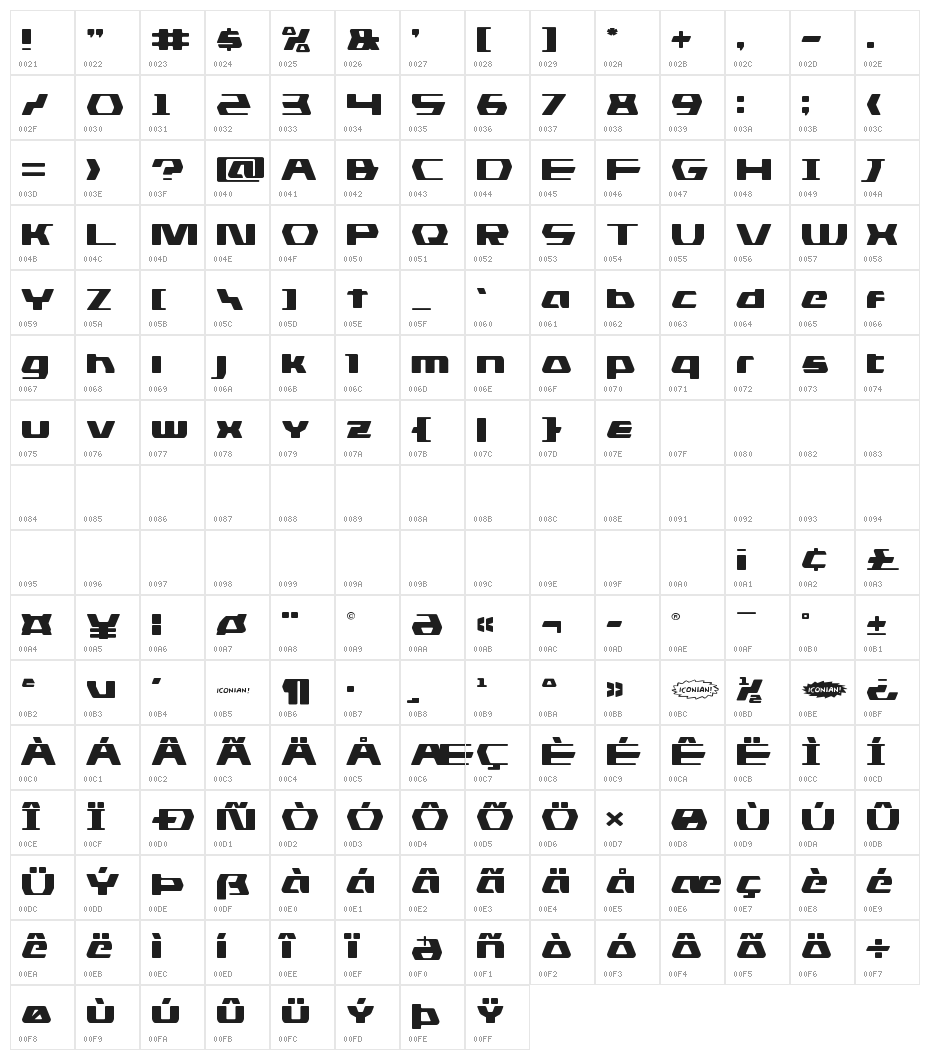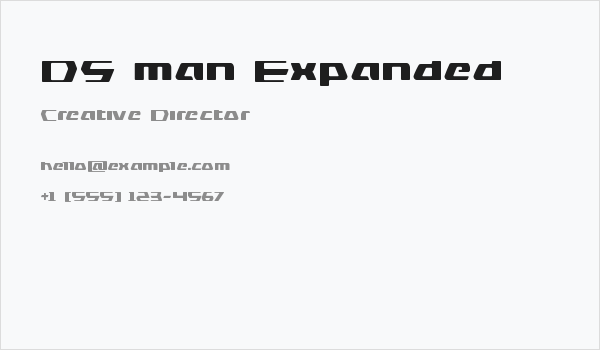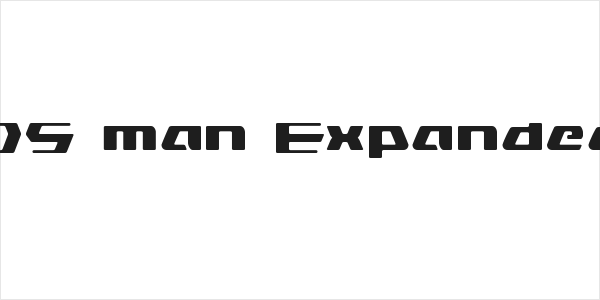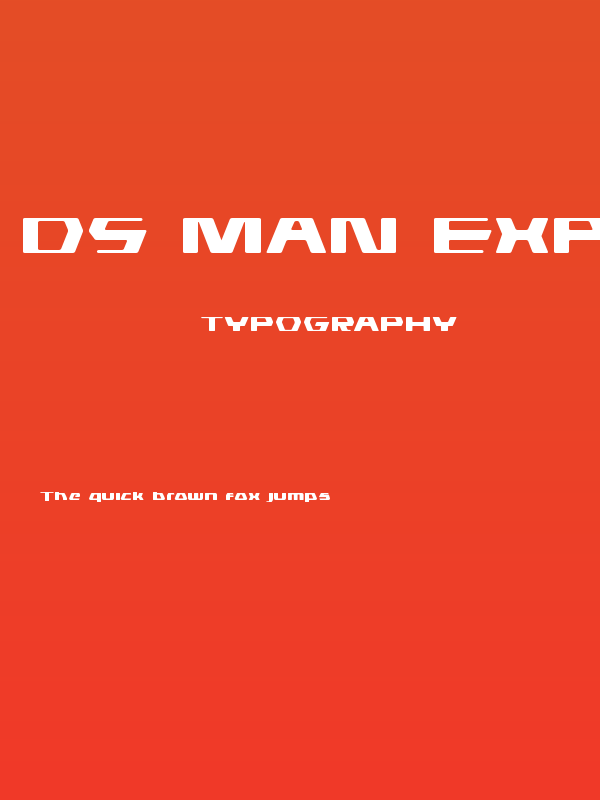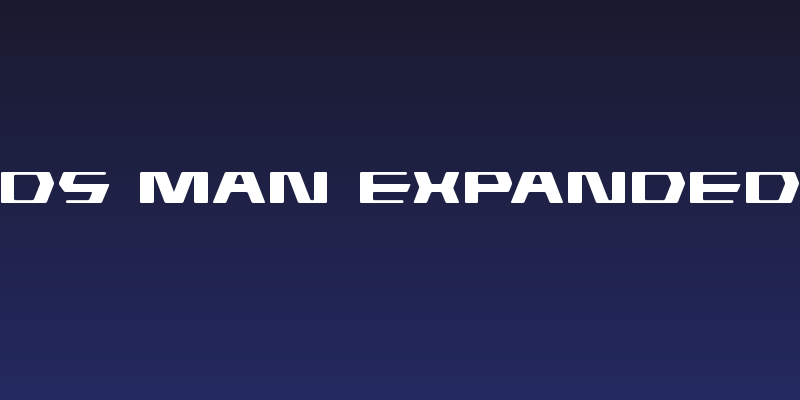
DS man Expanded Font
DS man Expanded Description
This font features a bold and futuristic design with a distinct geometric style. The characters are constructed with sharp angles and a blocky appearance, giving it a strong and impactful presence. The uppercase and lowercase letters maintain a consistent width, enhancing its uniformity. The numerals and special characters follow the same design principles, ensuring a cohesive look across all elements. Its unique style makes it suitable for projects that require a modern and edgy aesthetic.
Proposed ProjectsIdeal for technology branding, sci-fi themed posters, video game titles, and modern advertising campaigns.